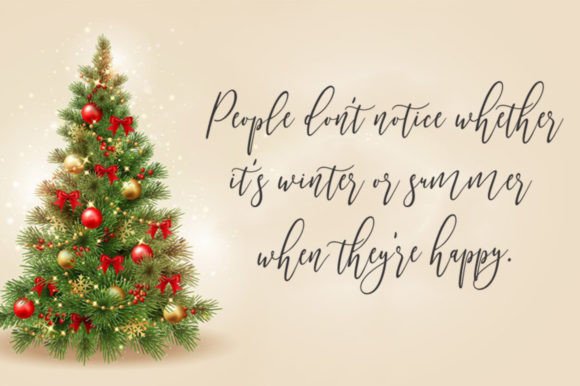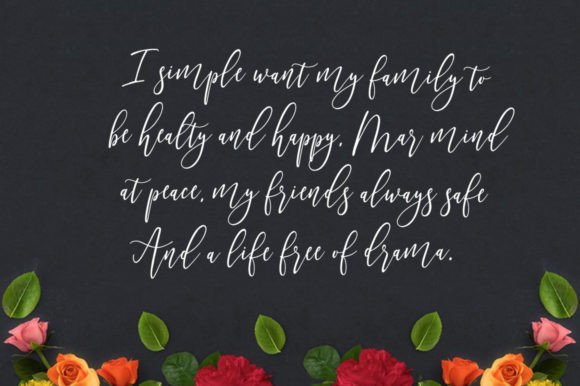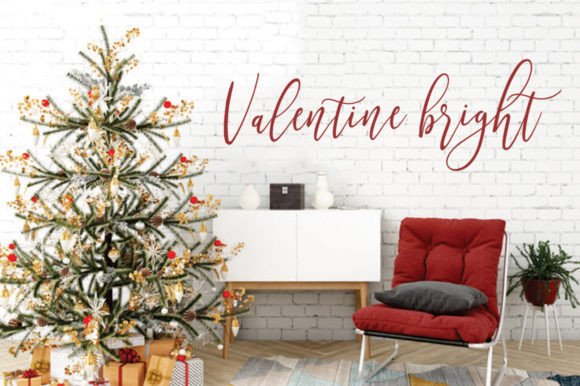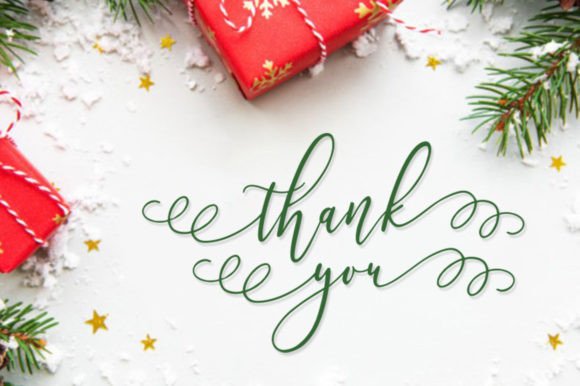
Introducing Anatolia Font: Elevate Your Designs with Elegance and Versatility
Are you a designer, crafter, or creative enthusiast looking for a font that can take your projects to the next level? Look no further than Anatolia Font, a spectacular scripted font that is incredibly versatile and perfect for a wide range of designs. With its elegant and flowing lines, Anatolia Font is sure to make your creative ideas come alive!
What Makes Anatolia Font So Special?
Anatolia Font is a standout font that boasts a unique and beautiful scripted style, perfect for adding a touch of sophistication and elegance to any design. Its versatility is one of its most notable features, making it suitable for a wide pool of designs, from wedding invitations and stationery to branding, packaging, and digital media.
Whether you’re creating a romantic wedding invitation, a stylish logo, or a captivating social media post, Anatolia Font is the perfect choice. Its flowing lines and intricate details will add a level of refinement and luxury to your designs, setting them apart from the rest.
Anatolia Font is a dream come true for designers and crafters who want to add a touch of elegance and sophistication to their projects. Whether you’re a seasoned pro or just starting out, this font is easy to use and will help you create stunning designs that will leave a lasting impression.
With Anatolia Font, you can:
- Create beautiful wedding invitations, stationery, and paper crafts
- Design stunning logos, branding, and packaging
- Develop captivating social media posts and digital media
Why Choose Anatolia Font?
With so many fonts on the market, why choose Anatolia Font? Here are just a few reasons why this font stands out:
- Unique and elegant design: Anatolia Font boasts a beautiful scripted style that will add a touch of sophistication to any design
- Versatility: This font is perfect for a wide range of designs, from wedding invitations to branding and digital media
Are you ready to take your designs to the next level? With Anatolia Font, you can add a touch of elegance and sophistication to any project. Whether you’re a designer, crafter, or creative enthusiast, this font is sure to inspire and elevate your creative ideas.